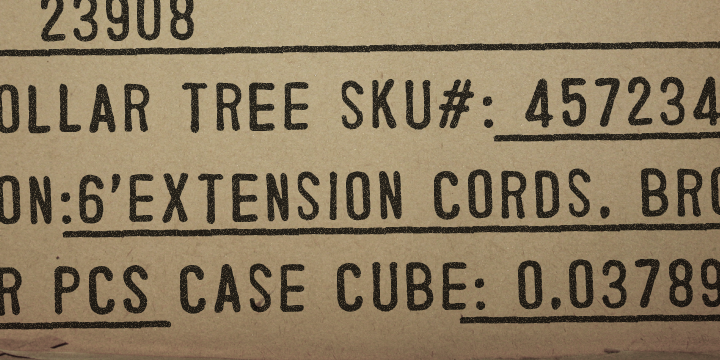
Parcel Font is perfect for shipping company branding, logistics websites, delivery app interfaces, packaging design, e-commerce platforms, postal service materials, warehouse signage, tracking systems, courier services, and modern retail communications.
What makes Parcel Font exciting is its clean, efficient design that perfectly captures the essence of modern logistics and seamless delivery experiences. This typeface features rounded corners and optimized letter spacing that create a friendly yet professional appearance, making it ideal for customer-facing applications in the shipping and delivery industry. The font's approachable character and excellent screen readability make it perfect for digital platforms where clarity and trust are essential.
Parcel Font family includes multiple weights and styles: Light, Regular, Medium, Bold, and Black variants, each available in both standard and condensed versions. The family also features specialized icons and symbols commonly used in shipping and logistics applications, creating a cohesive visual system for comprehensive branding.
E-commerce businesses and logistics companies consistently select Parcel Font Free Download for projects requiring modern functionality and customer confidence. The font's versatile nature excels in both digital interfaces and physical packaging applications, making it ideal for omnichannel retail experiences. Whether you're designing tracking interfaces, shipping labels, or customer communications, this contemporary typeface delivers the reliability and professionalism that builds customer trust in delivery services.